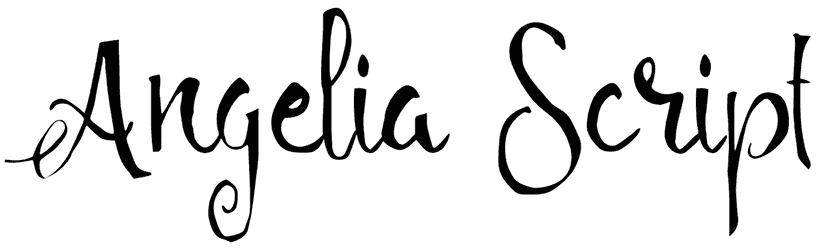
Angelia Script Font
We give you the good news that if you download this Angelia Script font and put it in your tool kit, you will have one of the most stylish and classy wedding invitation cards.
In addition, this friendly feminine script font can be selected to design a variety of happy themes such as birthdays, logos, florists, perfume brands, and many more. You can be sure that your project will be better and have a larger audience.